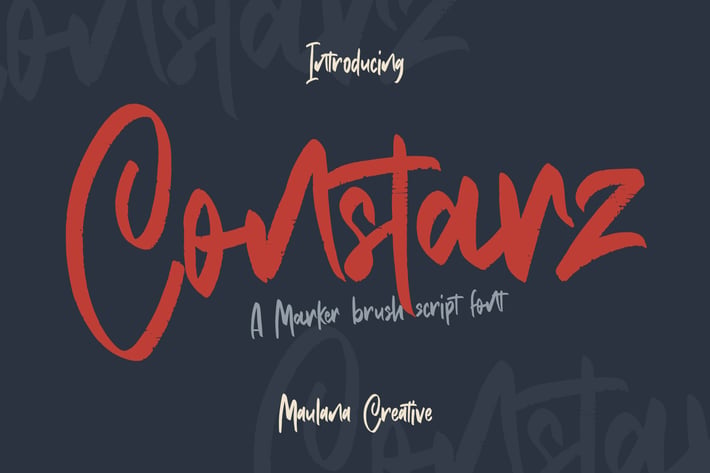
Constarz Marker Brush Script Font
Give your designs an authentic handcrafted feel. Constarz Marker Brush Script Font is perfectly suited to logo, stationery, branding, typography quotes, magazine or book cover, website header, clothing, branding, packaging design, restaurant and more.